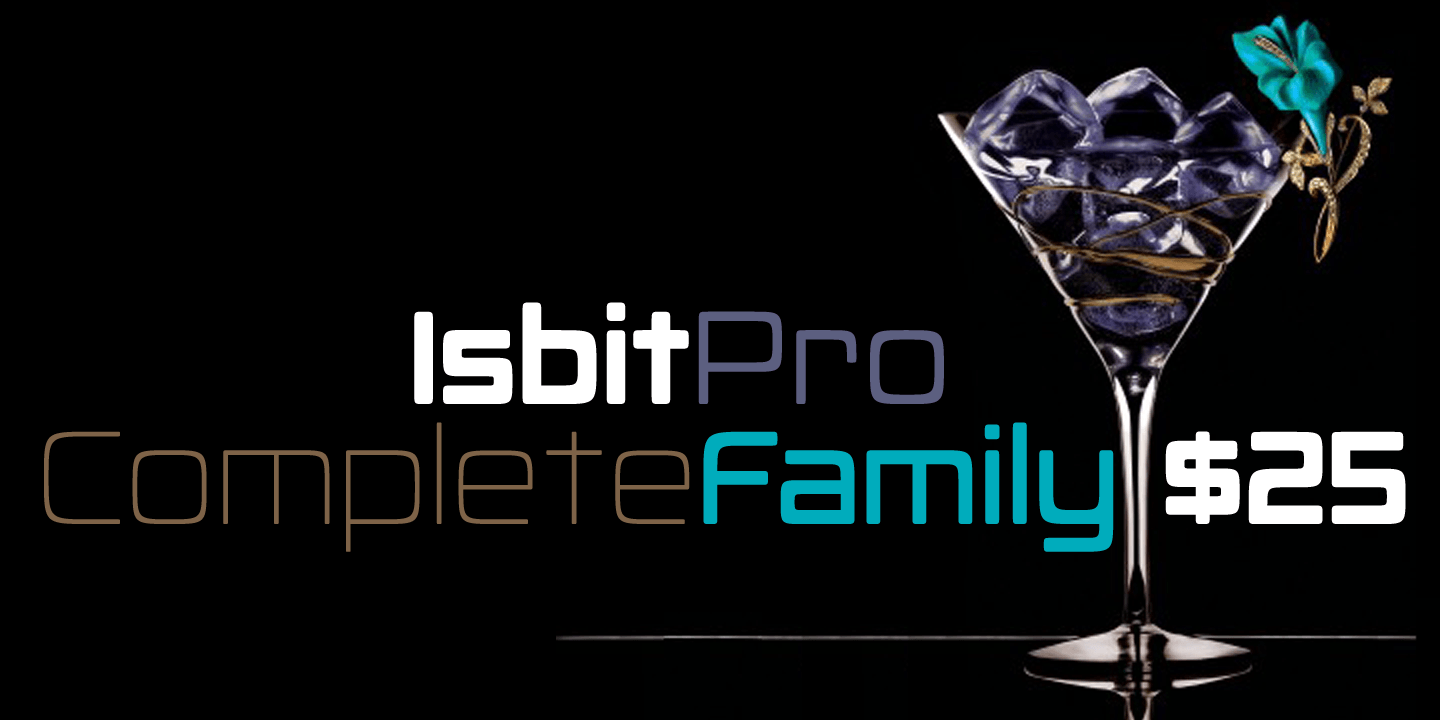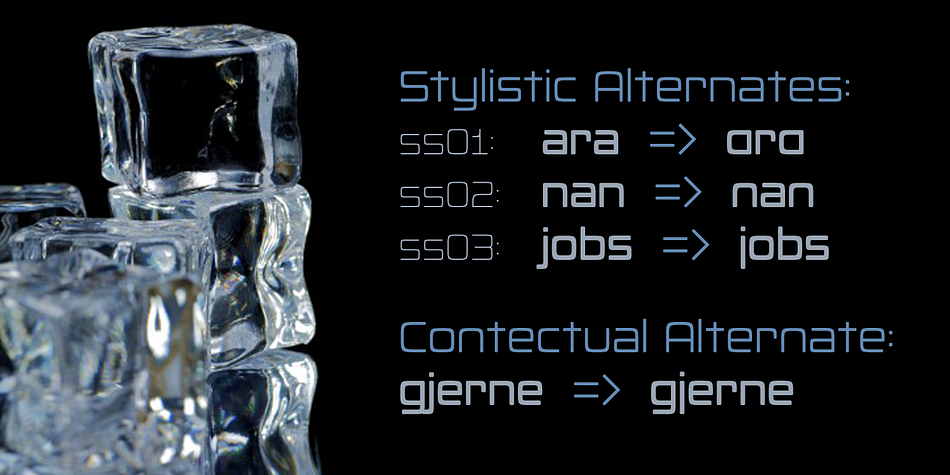
Isbit Pro is a sans serif font family. This typeface has four styles and was published by CheapProFonts.
Inspired by the shape of melting icecubes (“isbit” is the norwegian word for “ice cube”), this small superelliptical font family is perfect for logos and headlines. An alternate lowercase a and n is available as stylistic alternates - and a straight lowercase j (which also will be automatically substituted when the nornal j would collide with the preceding glyph).